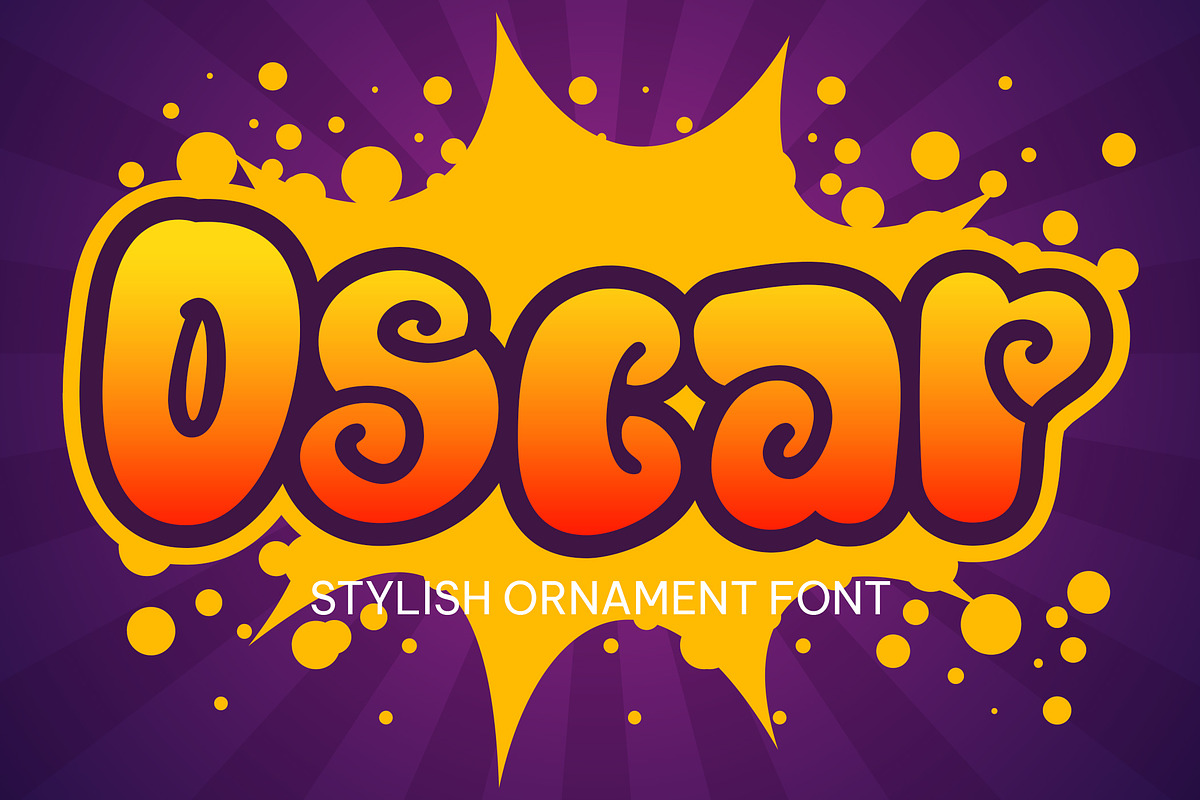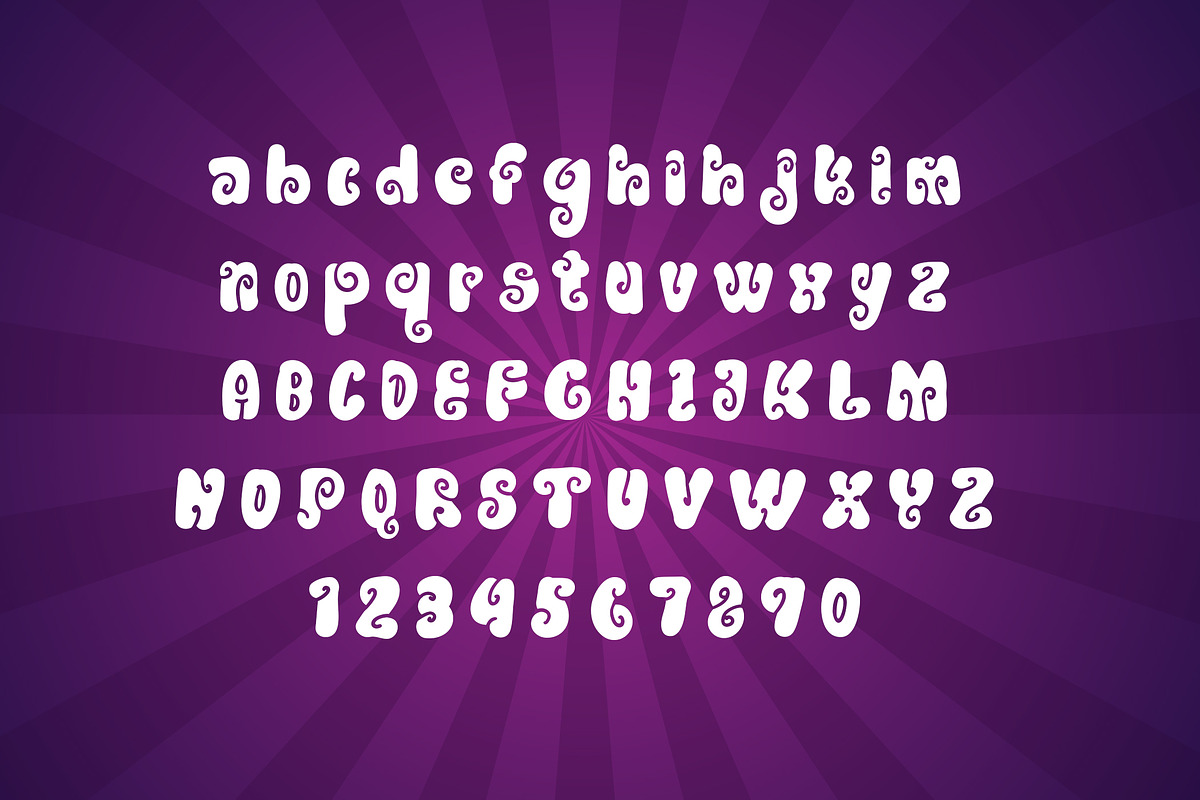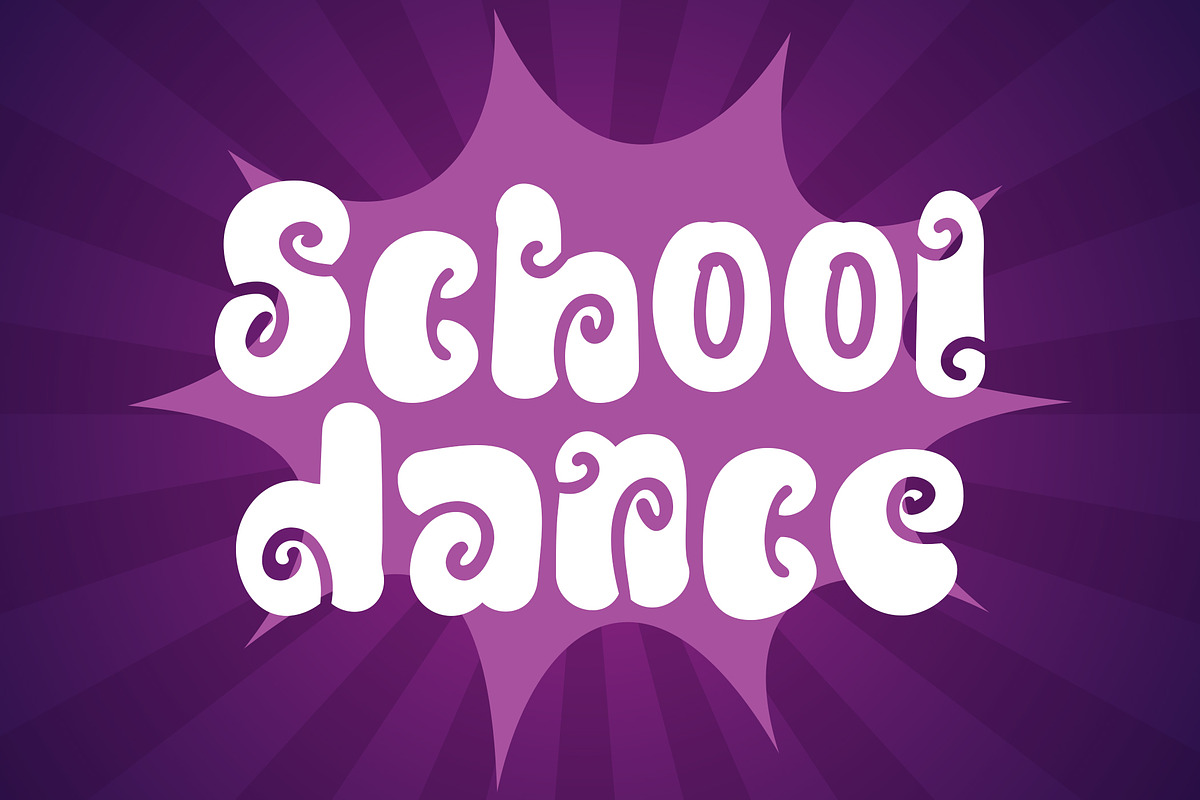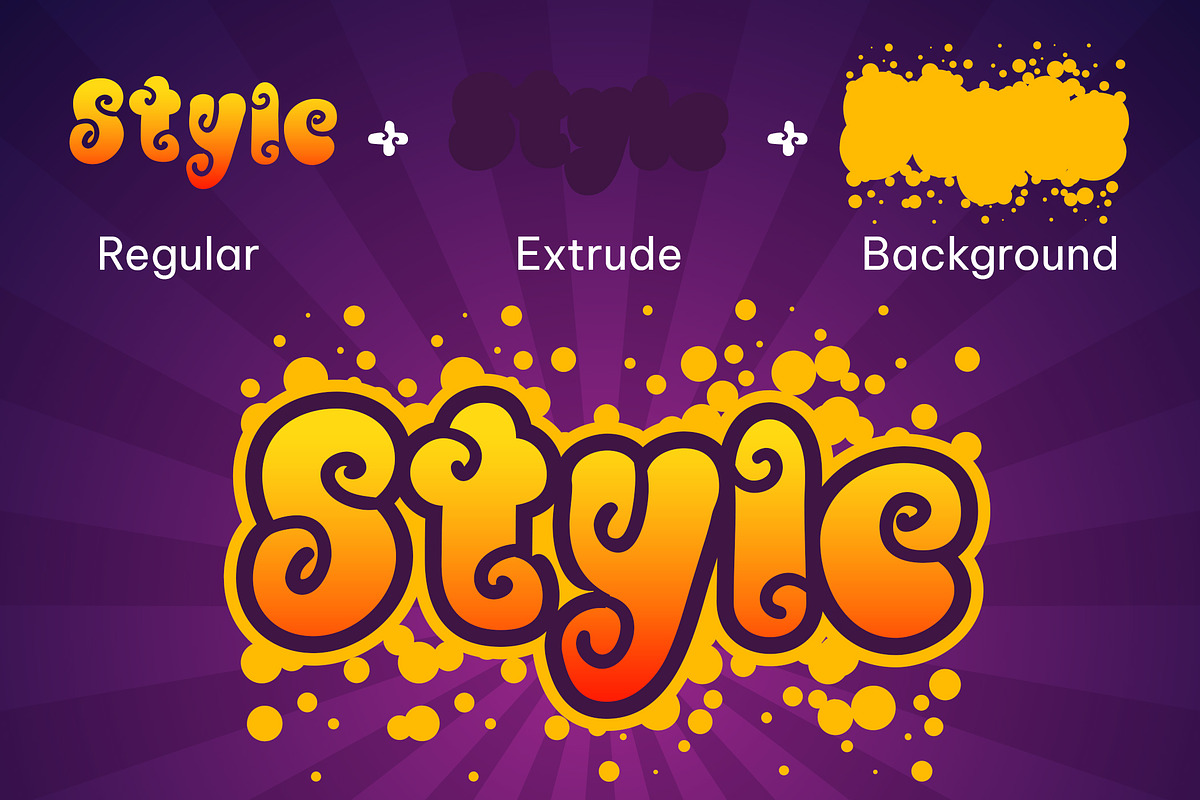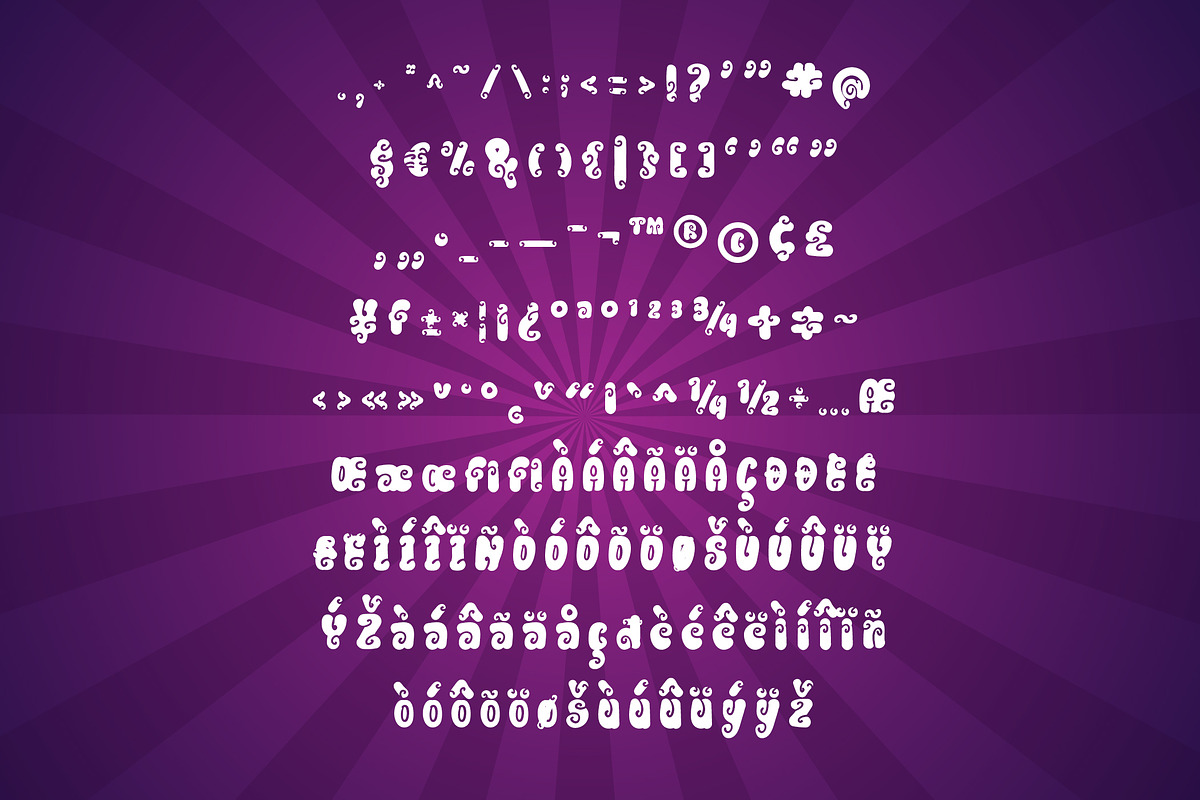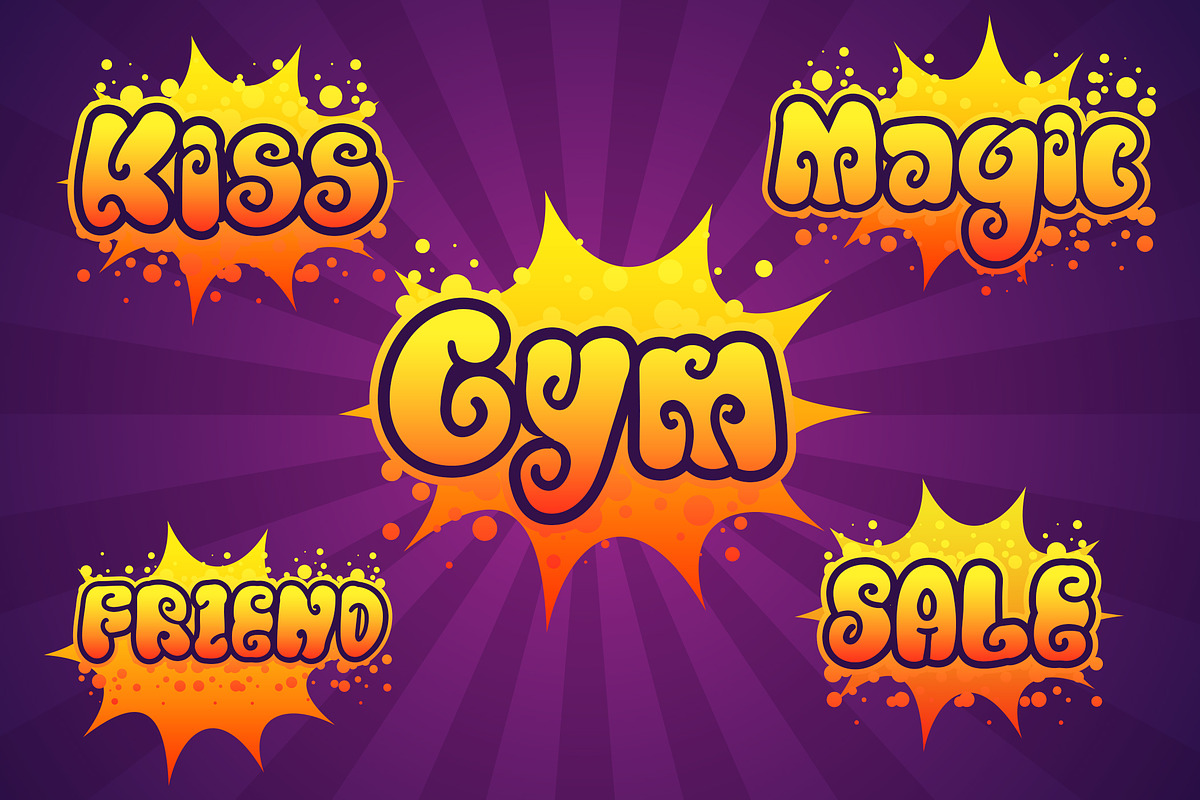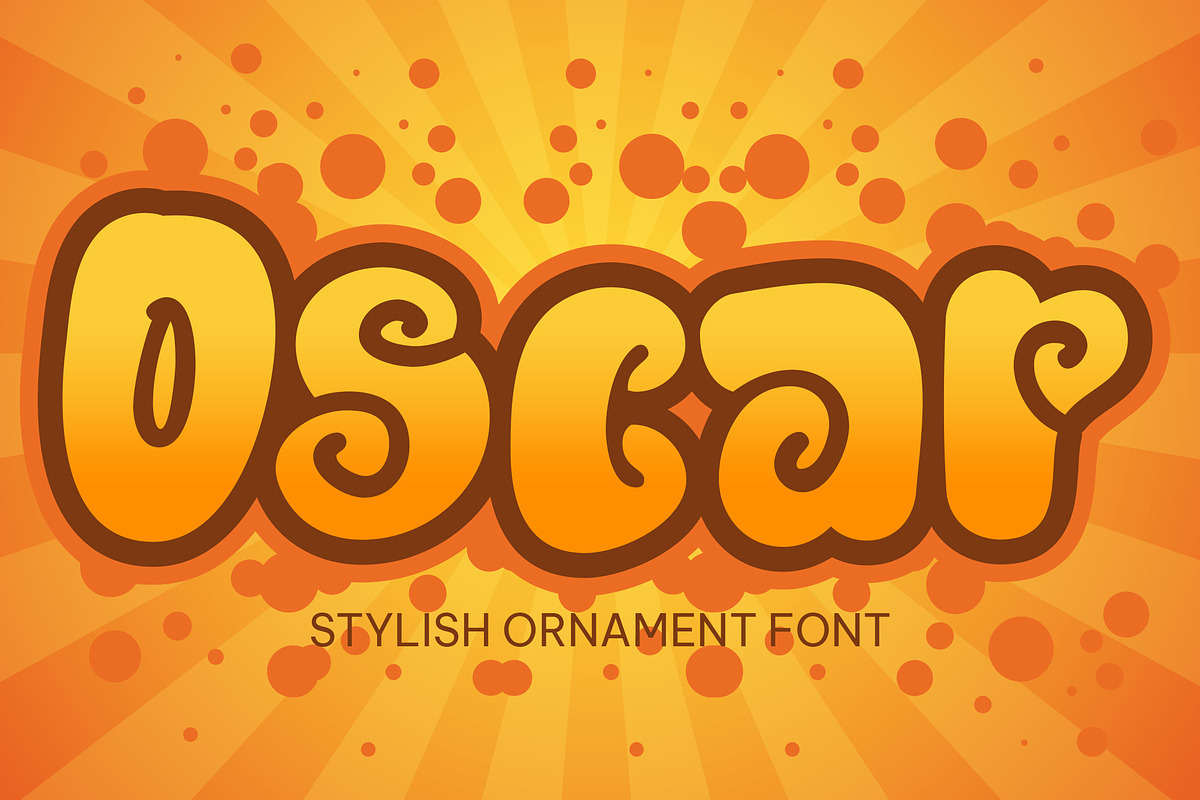
Oscar - Stylish Ornament Font
Oscar is a bold, condensed font that features a sweet ornaments-inspired design. Looks best at large sizes where the details can be appreciated, but the solid version can also be used at smaller sizes. Font includes all lowercase and uppercase characters, numbers, punctuation ,an array of standard ligatures and a selection of international characters as well . This font is PUA encoded which means you can access all of the glyphs and swashes with ease! (please type the preview to see if I have what you need!)